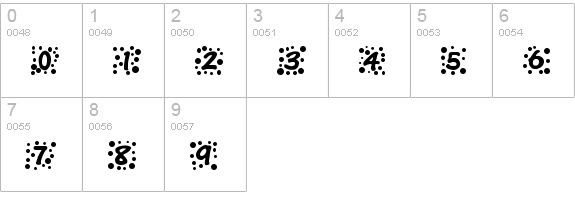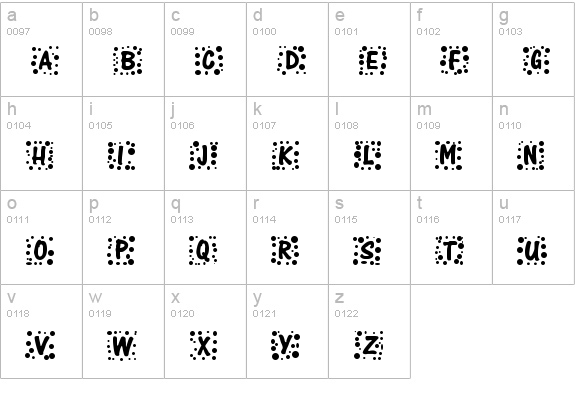
Whim Font Details
Introducing Whim, the free-spirited font that will add a touch of whimsy to your designs. With its playful curves and graceful strokes, Whim captures the essence of creativity and imagination. Whether you're designing a children's book, crafting a logo, or creating a whimsical invitation, this font will bring your ideas to life. Whim is not only visually captivating, but it is also freely available to download at FontsMarket.com. That's right, you can add this delightful font to your collection without spending a dime. Embrace the freedom of creativity as you explore the endless possibilities that Whim offers. With its extensive character set, Whim gives you the flexibility to express your unique style. From lowercase letters with charming quirks to uppercase characters that evoke a sense of joy, this font is perfect for any project that calls for a touch of whimsy. Whim's versatility extends beyond its captivating appearance. Its smooth legibility ensures that your message is conveyed effortlessly, whether it's in a headline, body text, or any other design element. The attention to detail in each letterform showcases the craftsmanship that went into creating this font, making it a standout choice for any design project. Embrace the magic of Whim and let your creativity take flight. Download this free font today at FontsMarket.com and unlock a world of possibilities for your design endeavors. Whether you're a professional designer or a passionate hobbyist, Whim will inspire you to think outside the box and infuse your work with a touch of enchantment. So go ahead, let your imagination run wild with Whim.